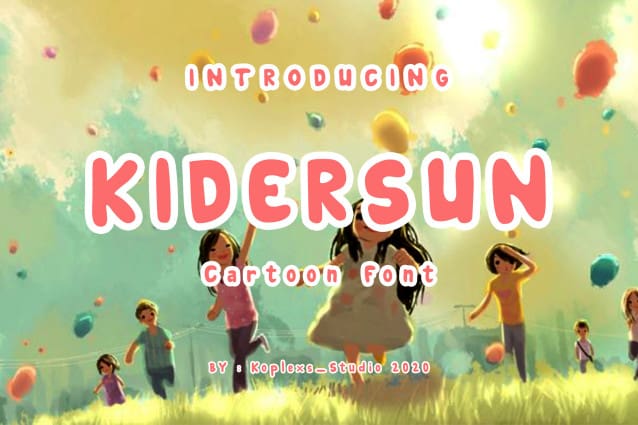
Kidersun Cartoon Font
Kidersun Cartoon Font is a unique and cute display font. Whether you are using it for cartoon-related designs, children’s games, quotes, titles, brand names, book covers, posters, or just any creation that requires a touch of beauty, this font is a great choice.
Kidersun Cartoon Font perfect for logo & Branding, watermark, social media posts, advertisements, logos & branding, product designs, label, stationery, logo designs, vintage design, retro design, product packaging, special events or anything that need handwriting taste.